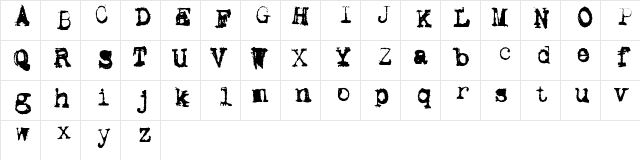
Metalic Avacodo Regular Free Font
Metalic Avacodo Regular
Metalic Avacodo Family
Complete Metalic Avacodo Regular glyph index. Displaying only characters natively supported by Metalic Avacodo Regular font.
Design Context for Metalic Avacodo
Metalic Avacodo is a composed and adaptable typeface that performs quietly and consistently across a wide range of design contexts.